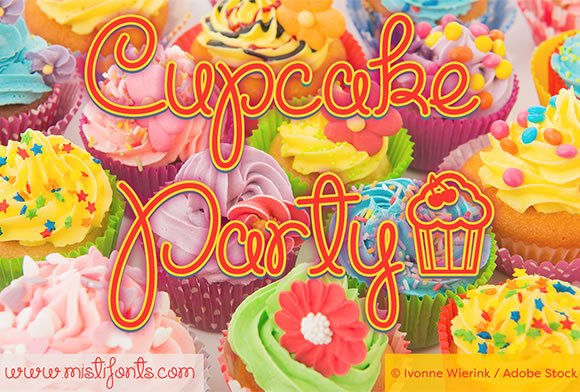
Celebrating Creativity with the Sweetest of Fonts
Have you ever been stuck on a design project, staring blankly at your computer screen, desperate for inspiration to strike? It’s a feeling we’ve all been there, right? But what if the solution was as simple as a sprinkle of creativity? That’s exactly what you’ll get with the Cupcake Party Font, a fun, curly font that’s perfect for adding a touch of whimsy to your designs.
This versatile font is not just for baking enthusiasts – it’s for anyone who wants to add a playful twist to their projects. From headings and logos to invitations and t-shirt designs, the Cupcake Party Font is the perfect addition to your design arsenal. As a designer, you know how valuable it is to have a reliable font that can elevate your work and make it stand out. The Cupcake Party Font is that reliable companion, always ready to bring a smile to your audience’s faces.
Cupcake Party Font Key Features
- Font Family: A playful and whimsical script font designed for party invitations, baking, and other festive occasions.
- Font Size: Designed to be used at medium to large sizes (18pt and above) to showcase the playful, cursive style effectively.
- Unique Characteristics: The font features swashes, flourishes, and connecting strokes to create a sense of movement and playfulness, making it perfect for adding a celebratory feel to designs.
Cupcake Party Font Review
As a designer, I was excited to dive into the Cupcake Party Font and see what it had to offer. Here’s my honest review.
The font’s playful and whimsical feel is perfect for any dessert-themed project. It’s especially great for bakeries, cafes, or any business that wants to convey a sense of fun and indulgence. The font’s rounded edges and cursive style make it easy to read and add a touch of sophistication.
While the font is great for specific projects, it may not be the best choice for more formal or professional designs. The font’s cursive style can make it difficult to read in certain contexts, and the playful feel may not be suitable for every brand.
Overall, I think the Cupcake Party Font is a great addition to any designer’s toolkit. It’s perfect for projects that need a touch of whimsy and fun, but it’s not the best choice for every design. With a little creativity and careful application, this font can really make a design stand out.
- Playful and whimsical feel
- Rounded edges and cursive style
- Perfect for dessert-themed projects
- May not be suitable for formal or professional designs
The Cupcake Party Font is perfect for:
- Birthday party invitations
- Wedding stationery
- Children’s party decorations
- Food blog headers
For best results, use the Cupcake Party Font in conjunction with bright, pastel colors and playful graphics.
Alternatives to Cupcake Party Font
Cursive Script Font
Cursive Script Font is a elegant, handwritten font that is perfect for creating a whimsical and playful atmosphere. It’s ideal for use in wedding invitations, baby shower invitations, and other special occasion designs. Compared to Cupcake Party Font, Cursive Script Font is more refined and sophisticated, making it suitable for more formal events.
Great Vibes Font is a beautiful, cursive font that is reminiscent of vintage signs and advertisements. It’s perfect for use in designs that need a touch of nostalgia and whimsy. Compared to Cupcake Party Font, Great Vibes Font is more relaxed and casual, making it suitable for designs that need a laid-back feel.
Carolyna Pro Font is a elegant, modern script font that is perfect for use in designs that need a touch of sophistication and glamour. It’s ideal for use in wedding invitations, event invitations, and other high-end designs. Compared to Cupcake Party Font, Carolyna Pro Font is more polished and refined, making it suitable for more formal and luxurious events.